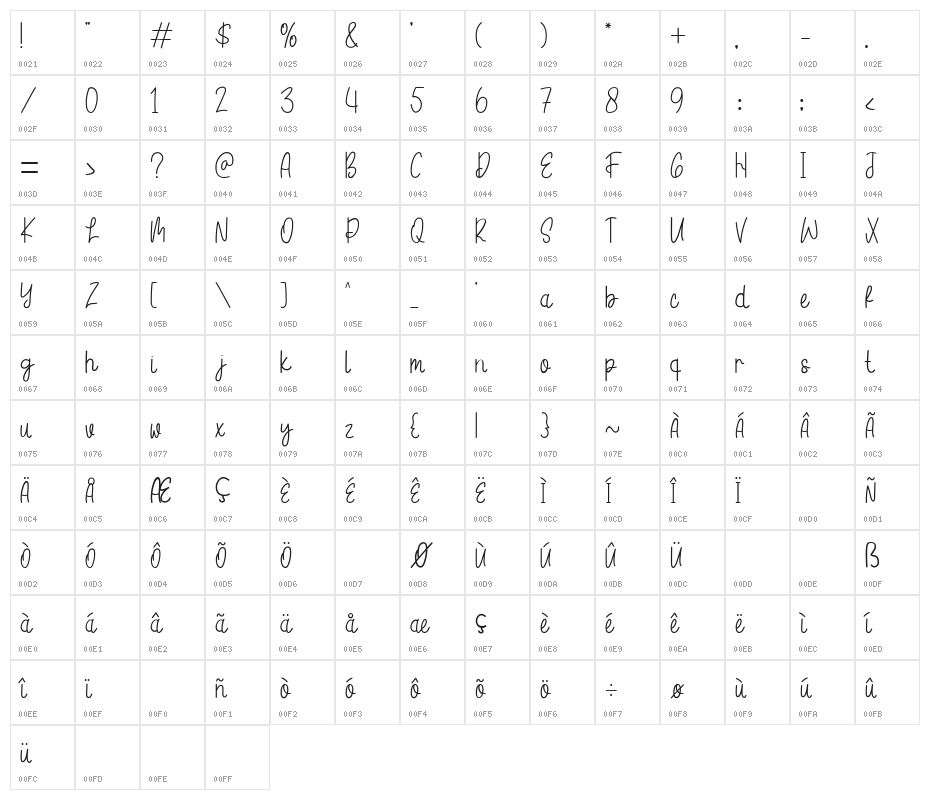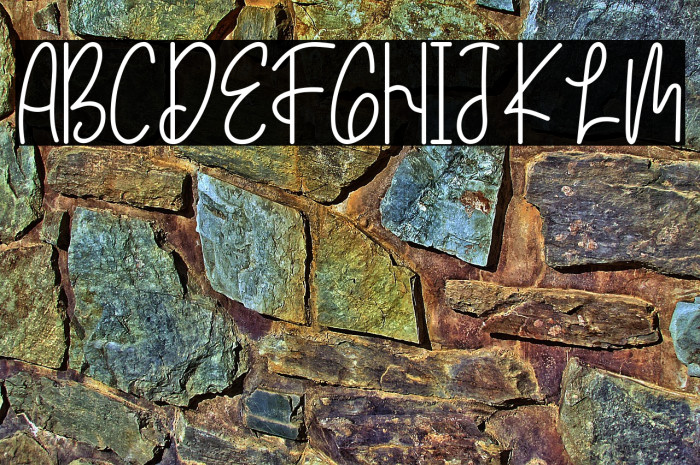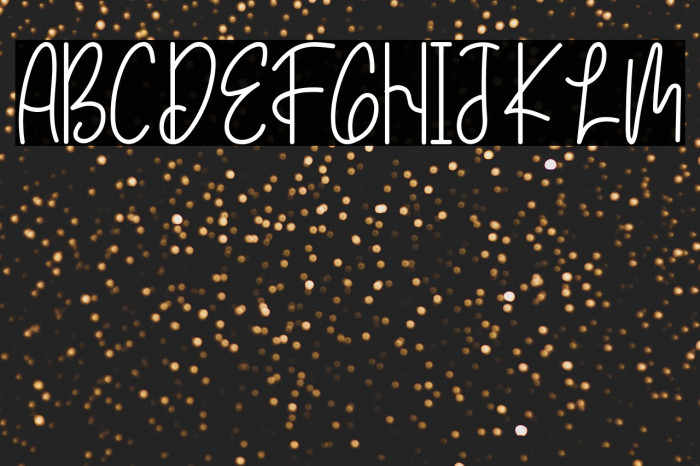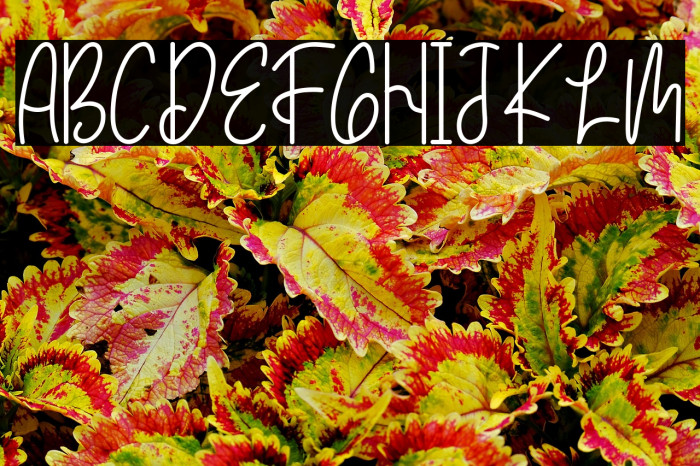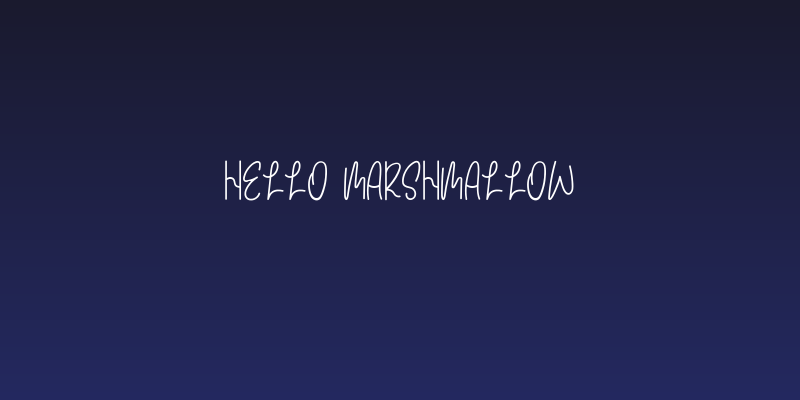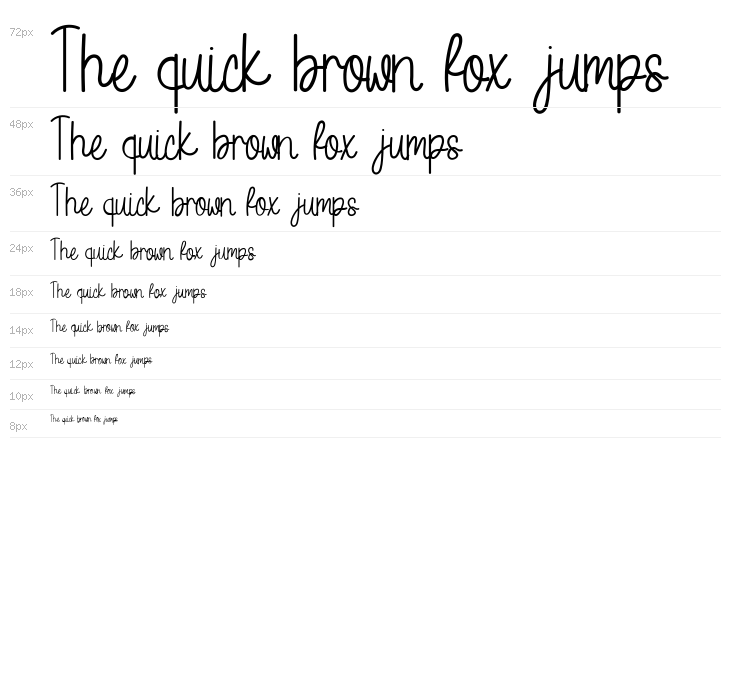
Hello Marshmallow Font
Hello Marshmallow Description
This font features a playful and whimsical handwritten style, characterized by its smooth, flowing lines and rounded edges. The uppercase letters are tall and slightly narrow, with a consistent stroke width that gives a uniform appearance. The lowercase letters maintain a similar style, with some letters like 'g' and 'y' having distinctive loops that add to the font's charm. Numbers are clear and easy to read, matching the overall aesthetic. Special characters are well-integrated, maintaining the same playful and informal tone. This font is ideal for projects that require a personal touch, such as greeting cards, invitations, or playful branding.